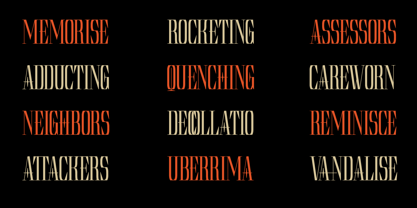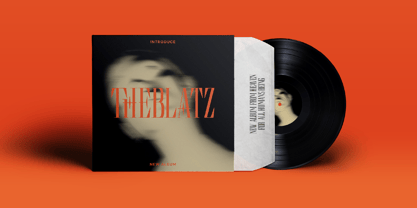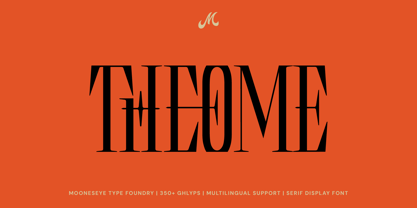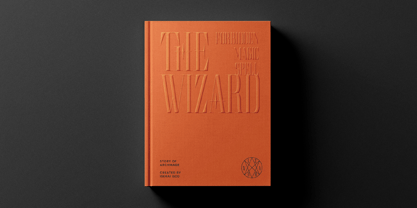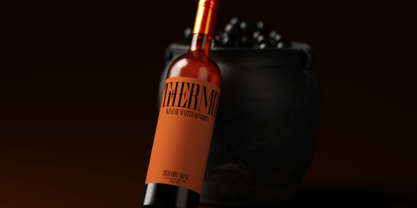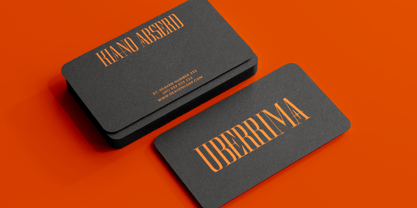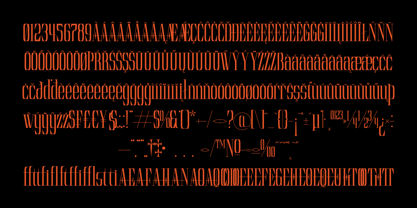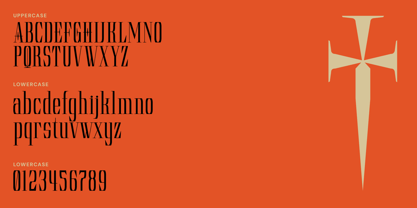
Theome
by Mooneseye Studio
The Theome Font Family was designed by Elhaq Farid and published by Mooneseye Studio. Theome contains 2 styles and family package options. More about this family
Theome is a condensed serif display font that bridges the gap between classic gothic architecture and contemporary high-fashion typography. Designed for impact, its razor-sharp serifs and towering verticality make it the perfect choice for designers looking to add a touch of dark elegance and mystery to their projects. Whether you are crafting a luxury brand identity, a moody editorial layout, or an edgy streetwear drop, Theome provides a sophisticated edge that demands attention.
Designers: Elhaq Farid
Foundry: Mooneseye Studio
About Mooneseye Studio
Mooneseye Studio, based in Indonesia, is a premier graphic design firm with a fervent passion for type design. Renowned for their expertise in creating visually compelling assets, the studio specializes in a broad spectrum of design services, including custom typefaces, innovative branding, and dynamic digital graphics. Their deep appreciation for typography drives their meticulous approach to each project, ensuring that every detail aligns perfectly with the client's vision. From crafting unique visual identities to producing engaging marketing materials, Mooneseye Studio combines artistic creativity with strategic insight to deliver designs that are not only aesthetically stunning but also highly effective. Their commitment to excellence and their ability to merge form with function make them a valued partner for businesses looking to enhance their visual presence and make a lasting impression in a competitive landscape. With Mooneseye Studio, clients can expect a design experience that is both professional and deeply creative, tailored to elevate their brand's impact.